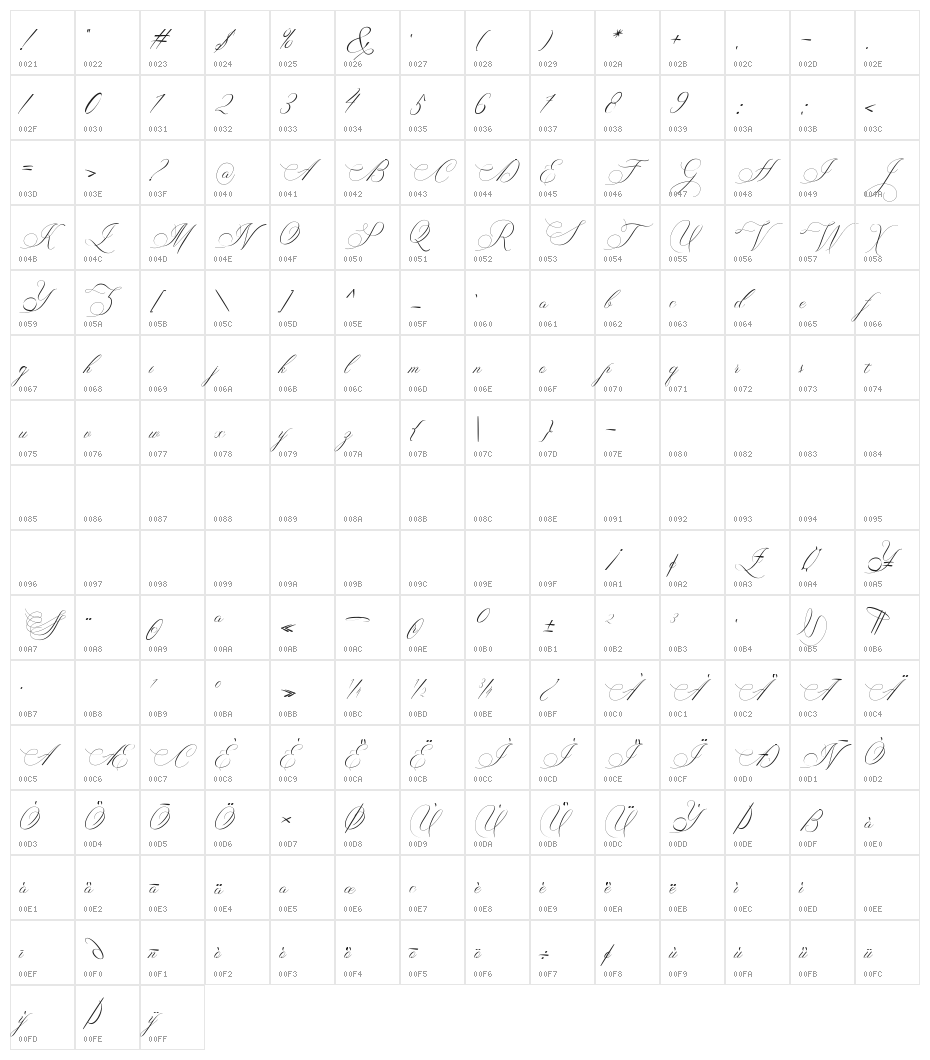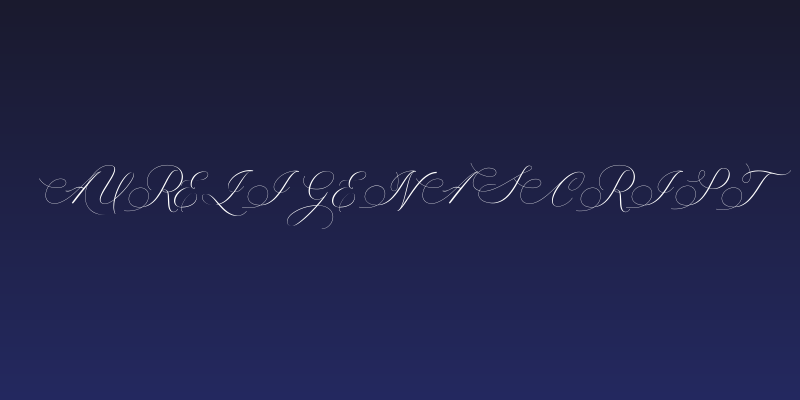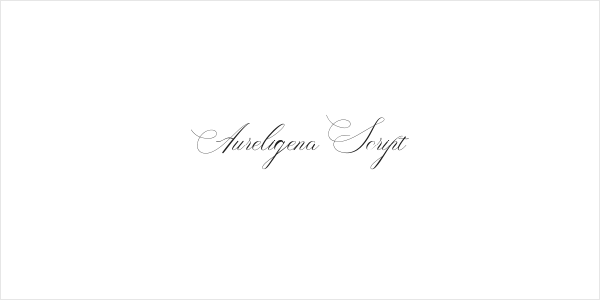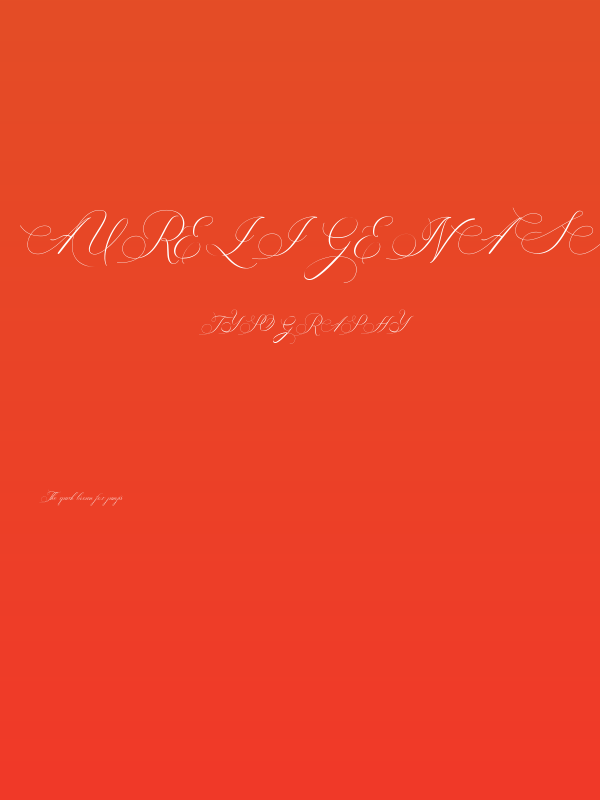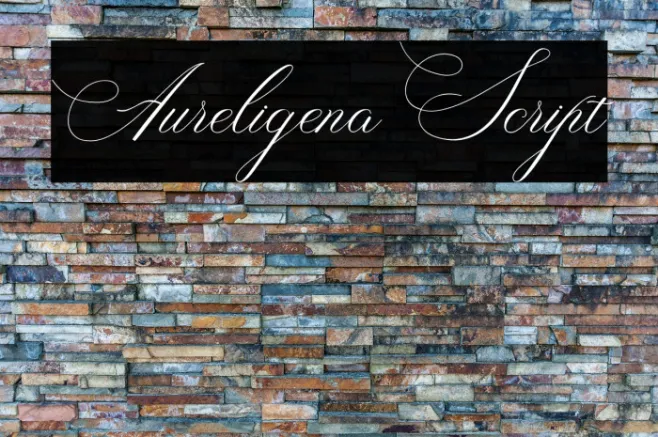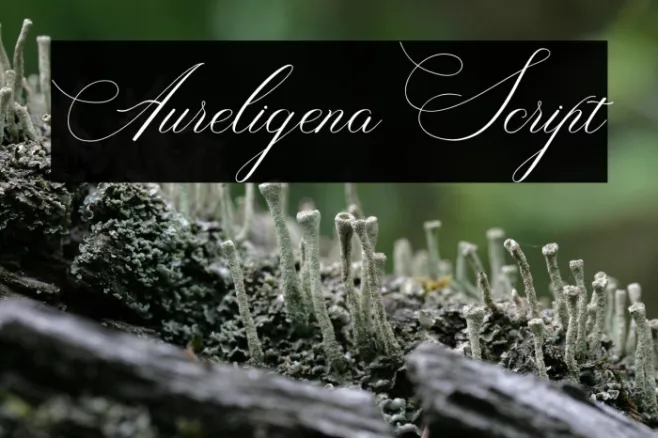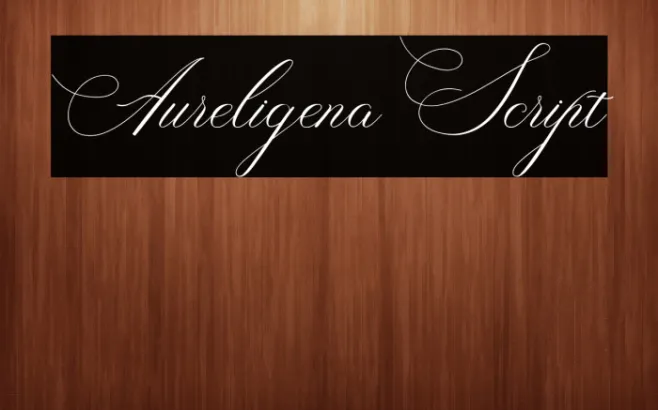
AureligenaScript Font
AureligenaScript Description
This elegant script font features flowing, interconnected letters with a classic calligraphic style. The uppercase letters are adorned with intricate loops and swashes, giving them a sophisticated and decorative appearance. The lowercase letters maintain a consistent flow, enhancing readability while preserving the font's artistic flair. The numerals are styled to match the script's overall aesthetic, with gentle curves and a refined look. Special characters are thoughtfully designed to complement the font's elegant nature, making it suitable for formal invitations, branding, and decorative purposes.
| Use Case | Logos, Invitations, Decorative headings |
| Proposed Projects | Ideal for wedding invitations, luxury branding, elegant stationery, and decorative headings. |